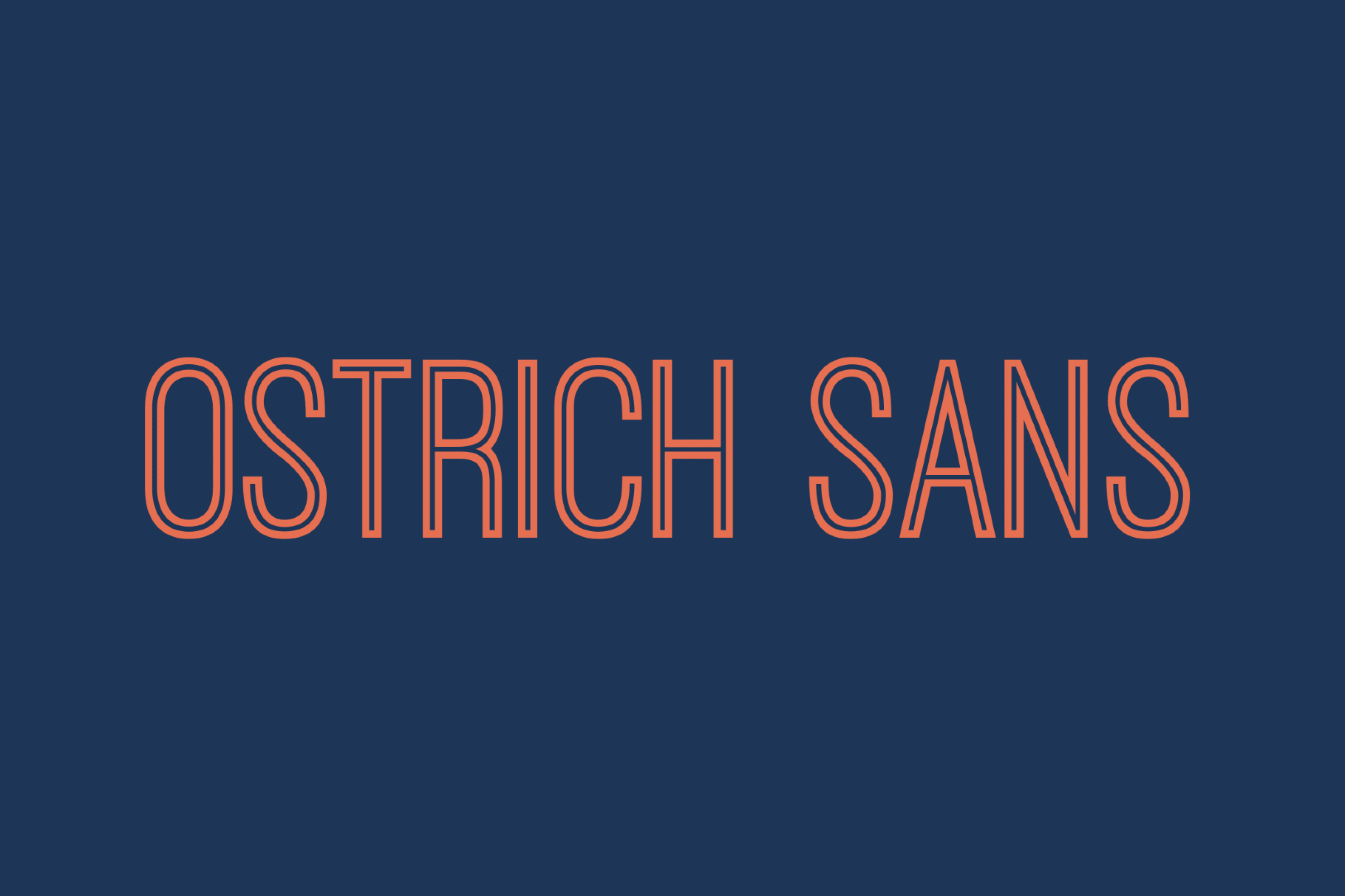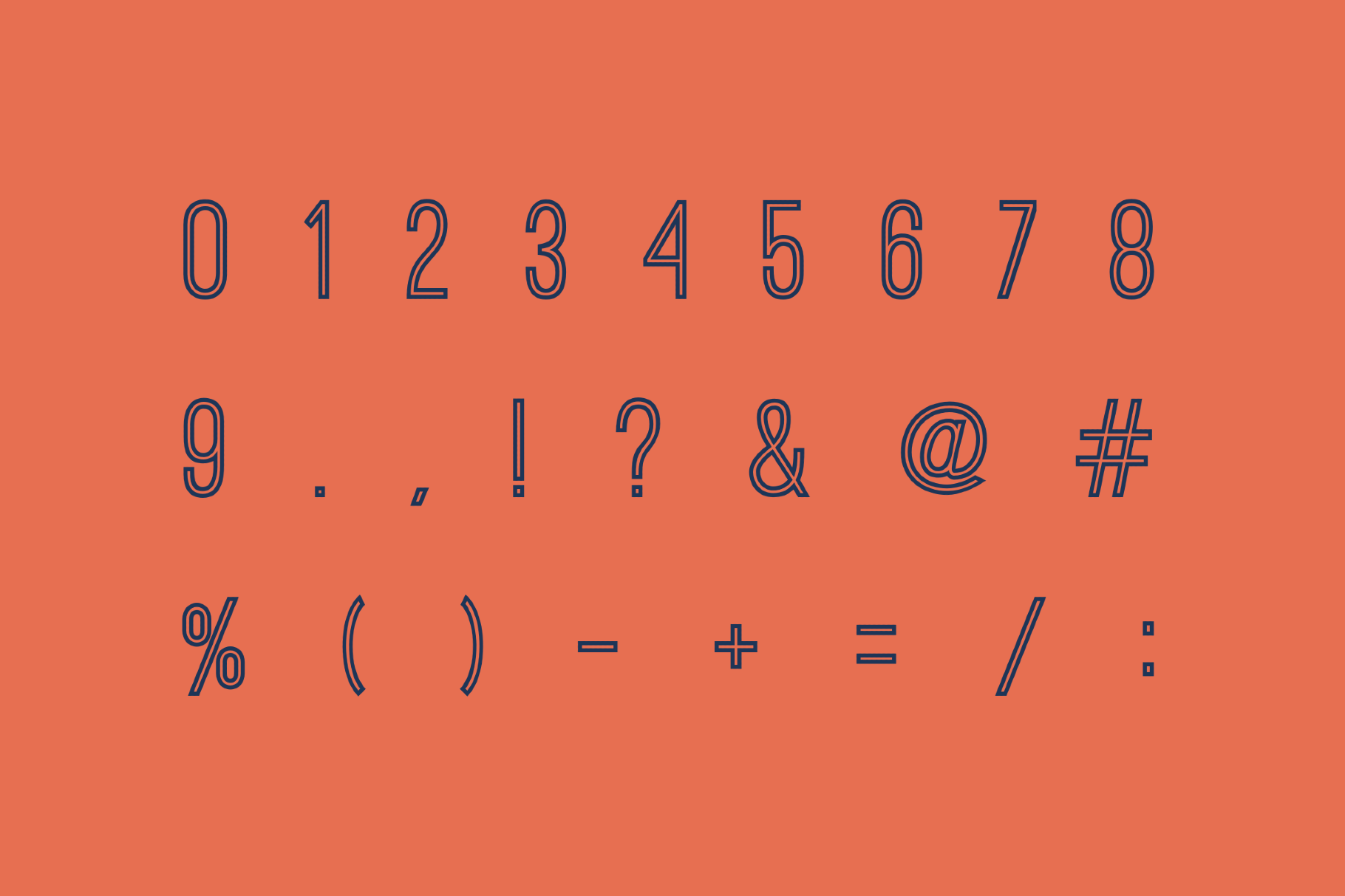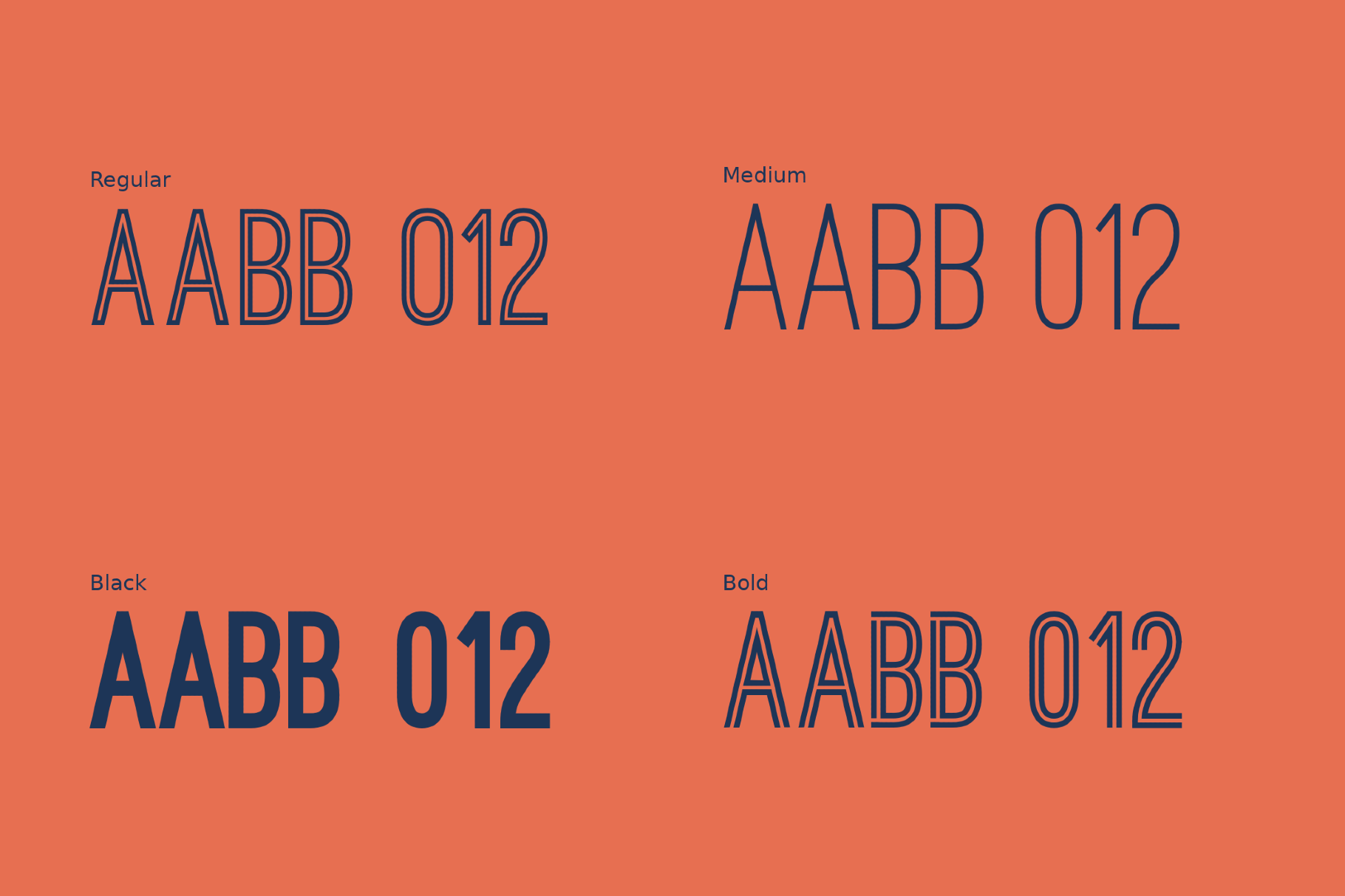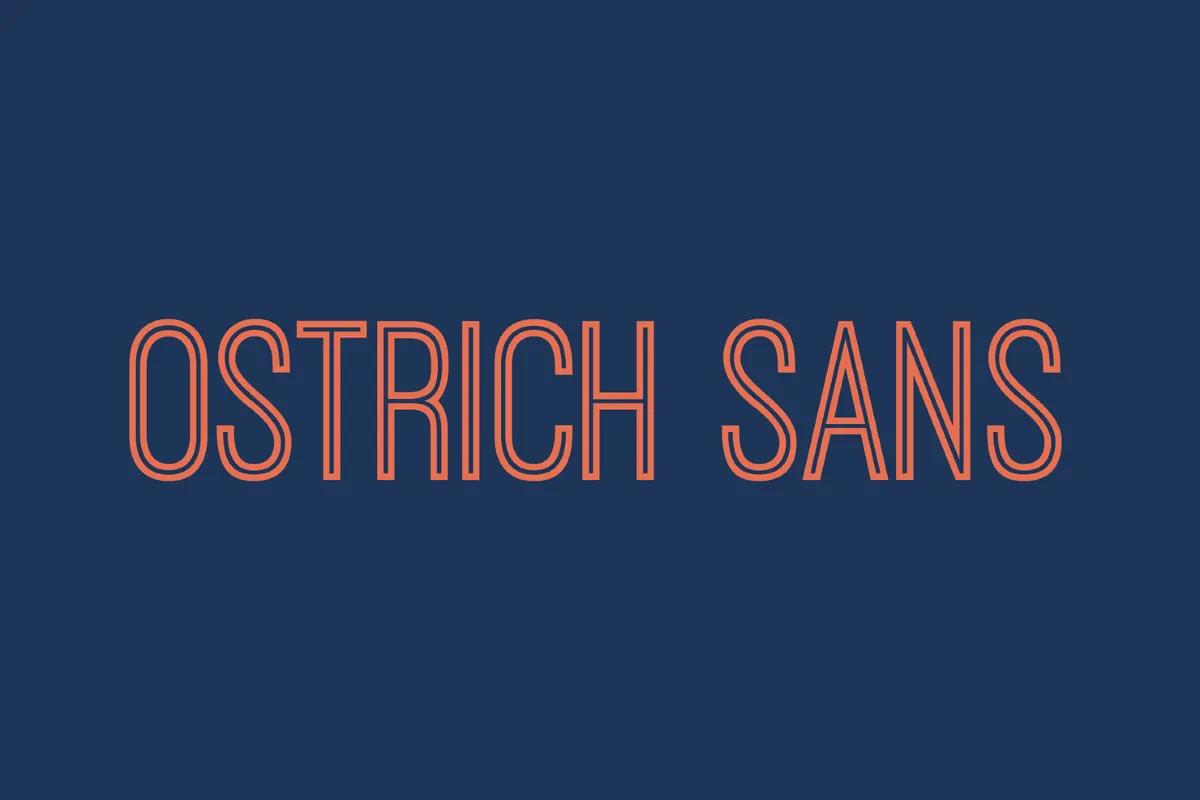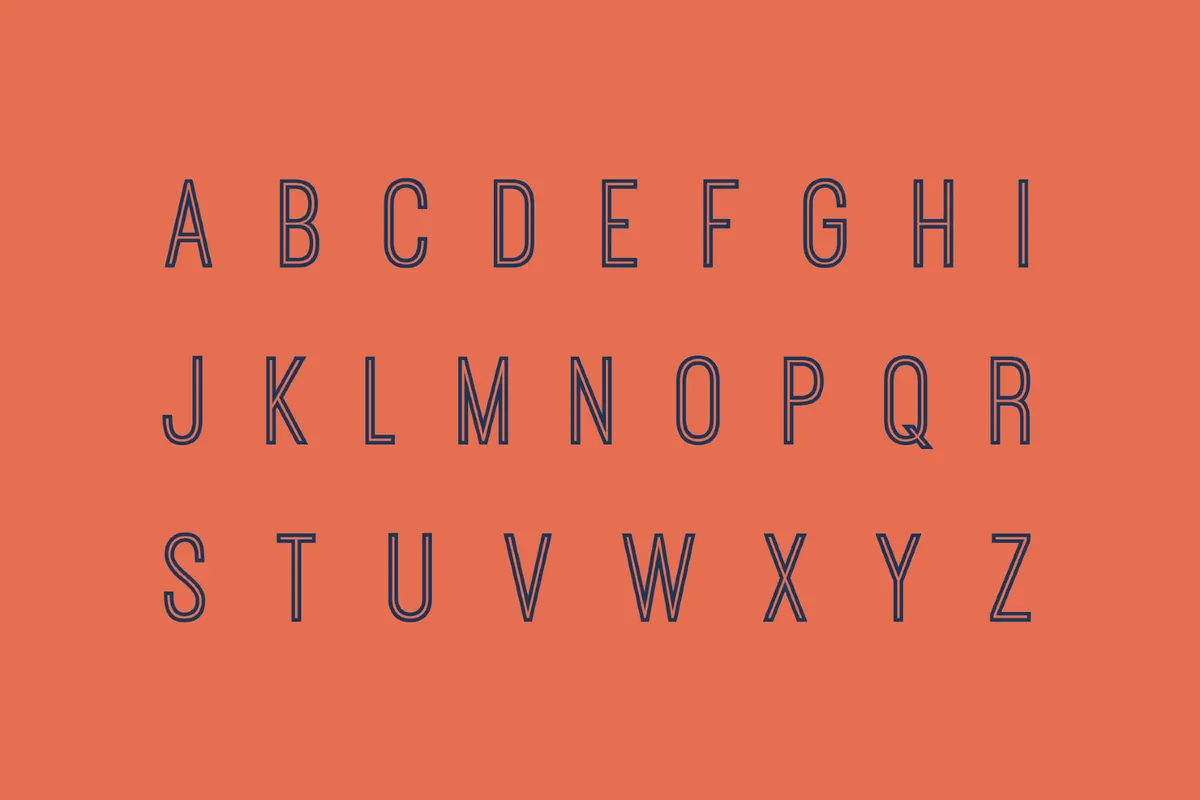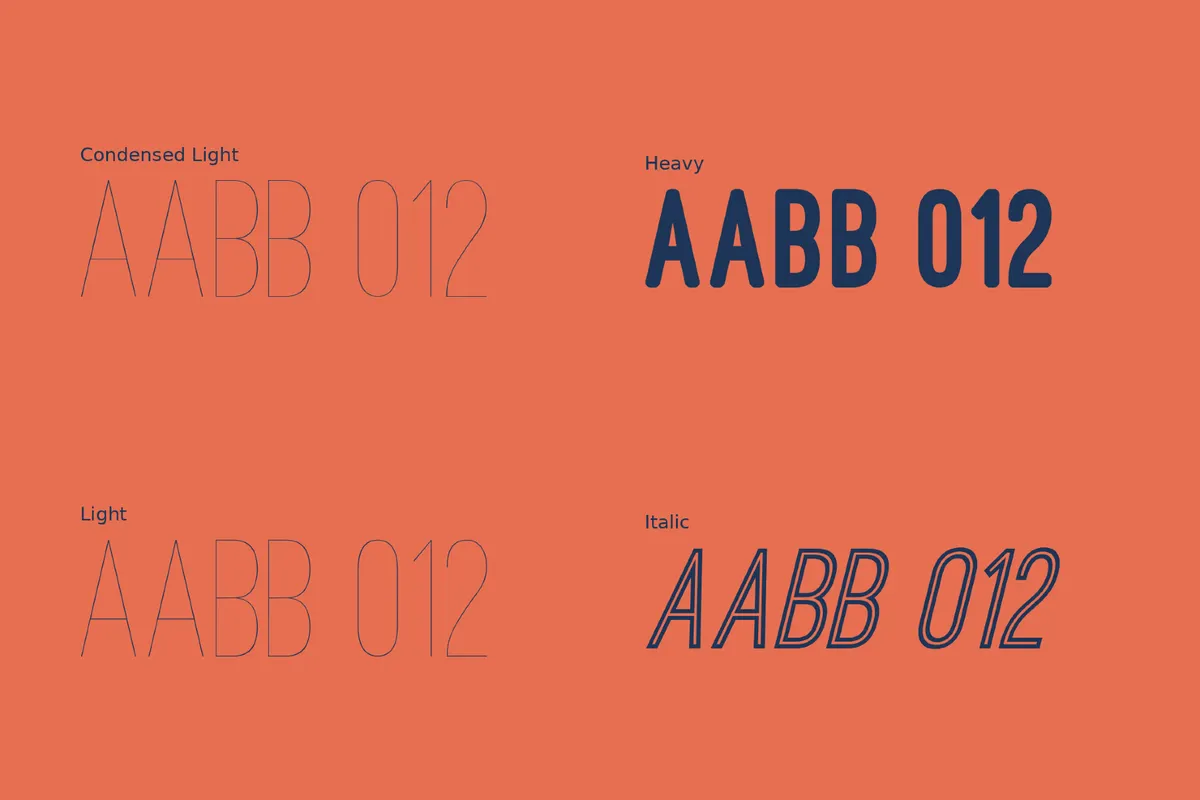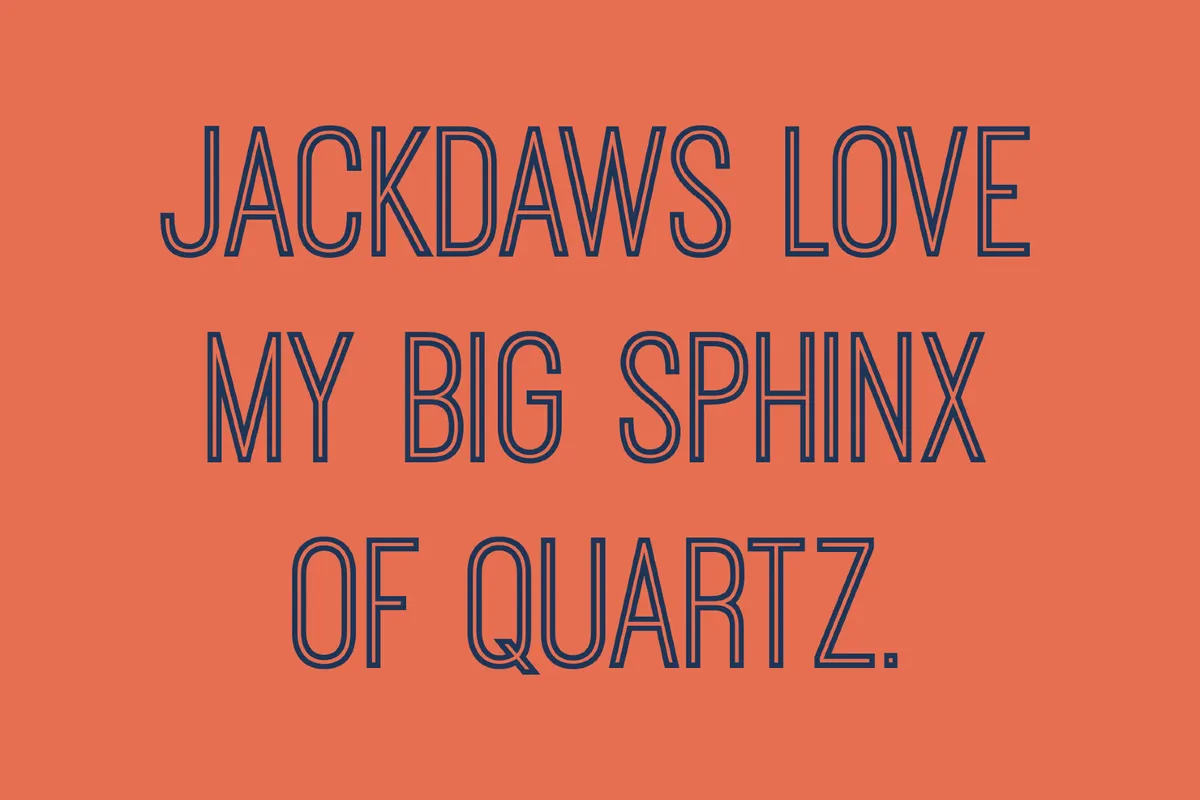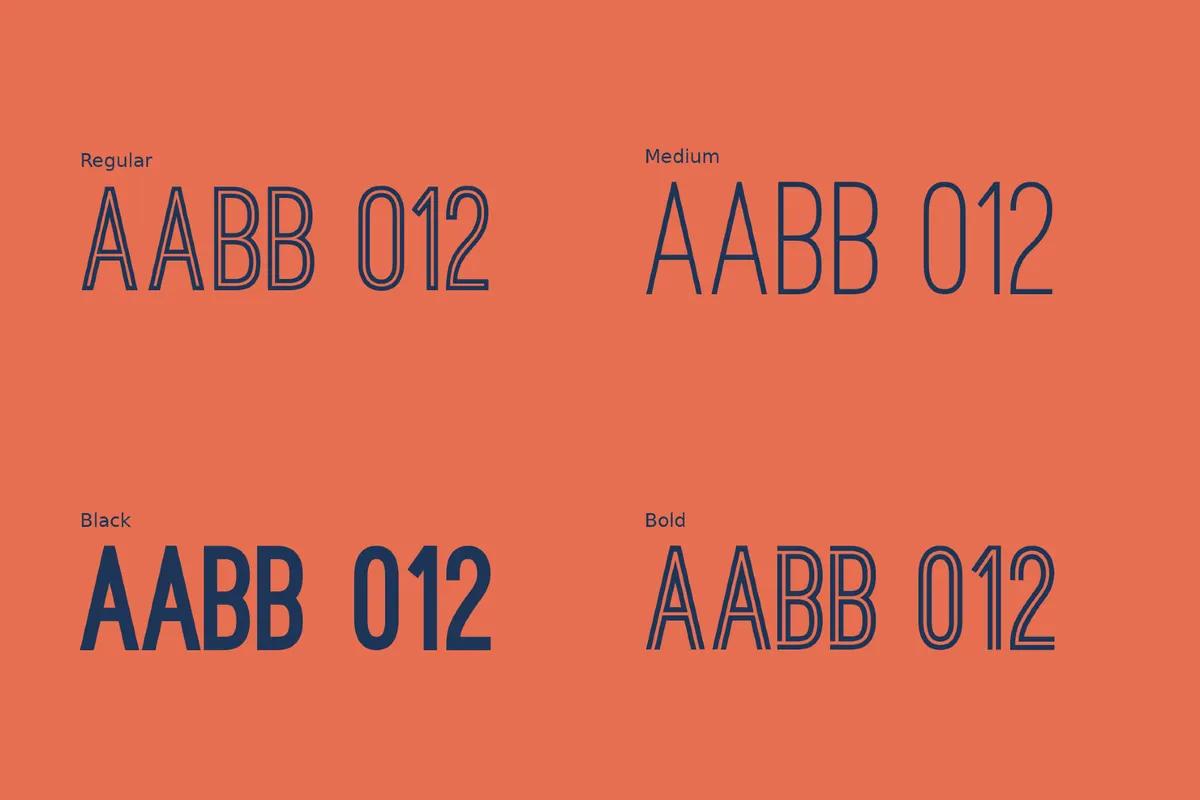
Ostrich Sans - 90s Font Family
Ostrich Sans turns extreme vertical extension into an editorial statement, with proportions drawn from the high-fashion magazine mastheads of the 1980s–90s and the stretched logotypes of luxury menswear catalogues. Its multiple weights — from Hairline to Heavy — let it carry vastly different moods while keeping the same elongated silhouette.
It suits fashion editorial headers, magazine mastheads, luxury brand identity, poster titles, architectural signage concepts, and menu design where verticality is the message.